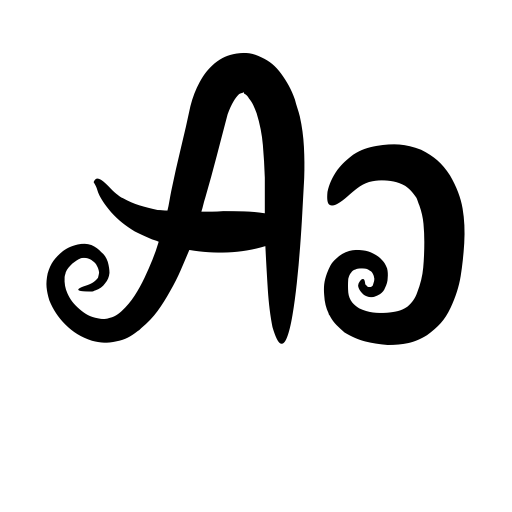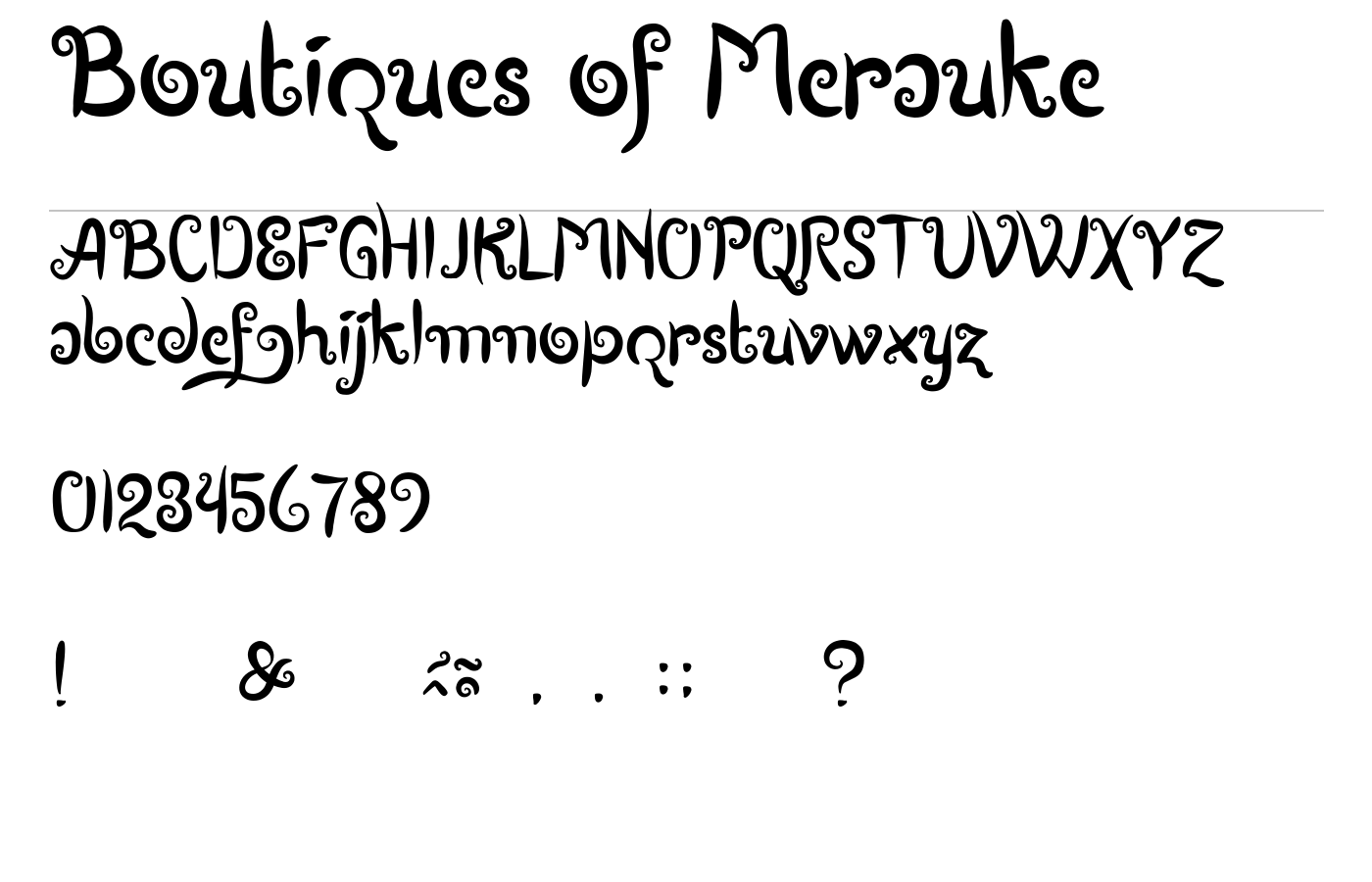
Boutiques of Merauke is a playful and decorative handwritten font with whimsical swirls and unique letterforms that add a quirky charm. Its medium weight and moderate contrast, combined with informal strokes, make it ideal for creative projects that want to convey a fun, artistic, and friendly vibe. This font works best in branding, invitations, posters, and headlines where a distinctive, cheerful personality is desired.